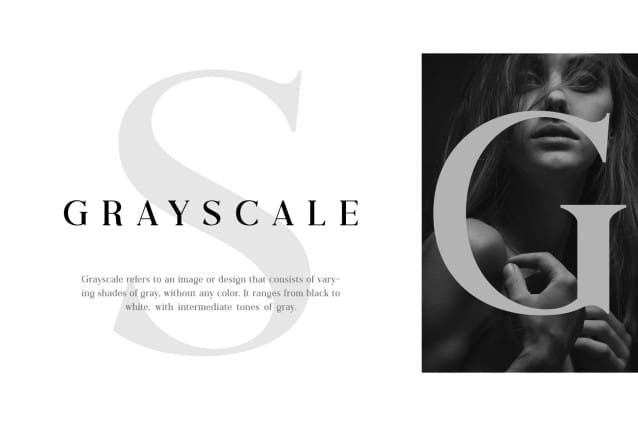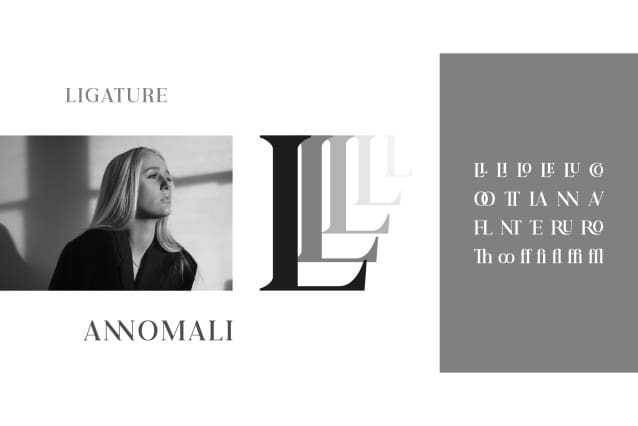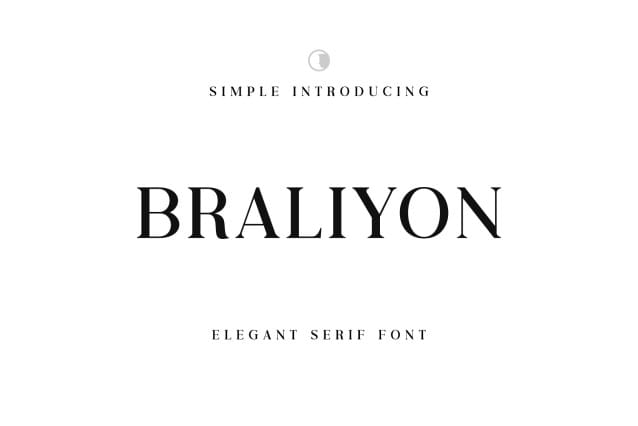
Braliyon Font is an Elegant Serif Font inspired by Classic Art Deco. It perfectly represents vintage in a modern and minimalist way.
Braliyon comes with 372 glyphs, including special uppercase and lowercase letters, alternate characters, and beautiful ligatures.
The font is perfect for elegant logo design, packaging, magazine cover, invitation cards, or anything your project that need elegant and vintage touch.